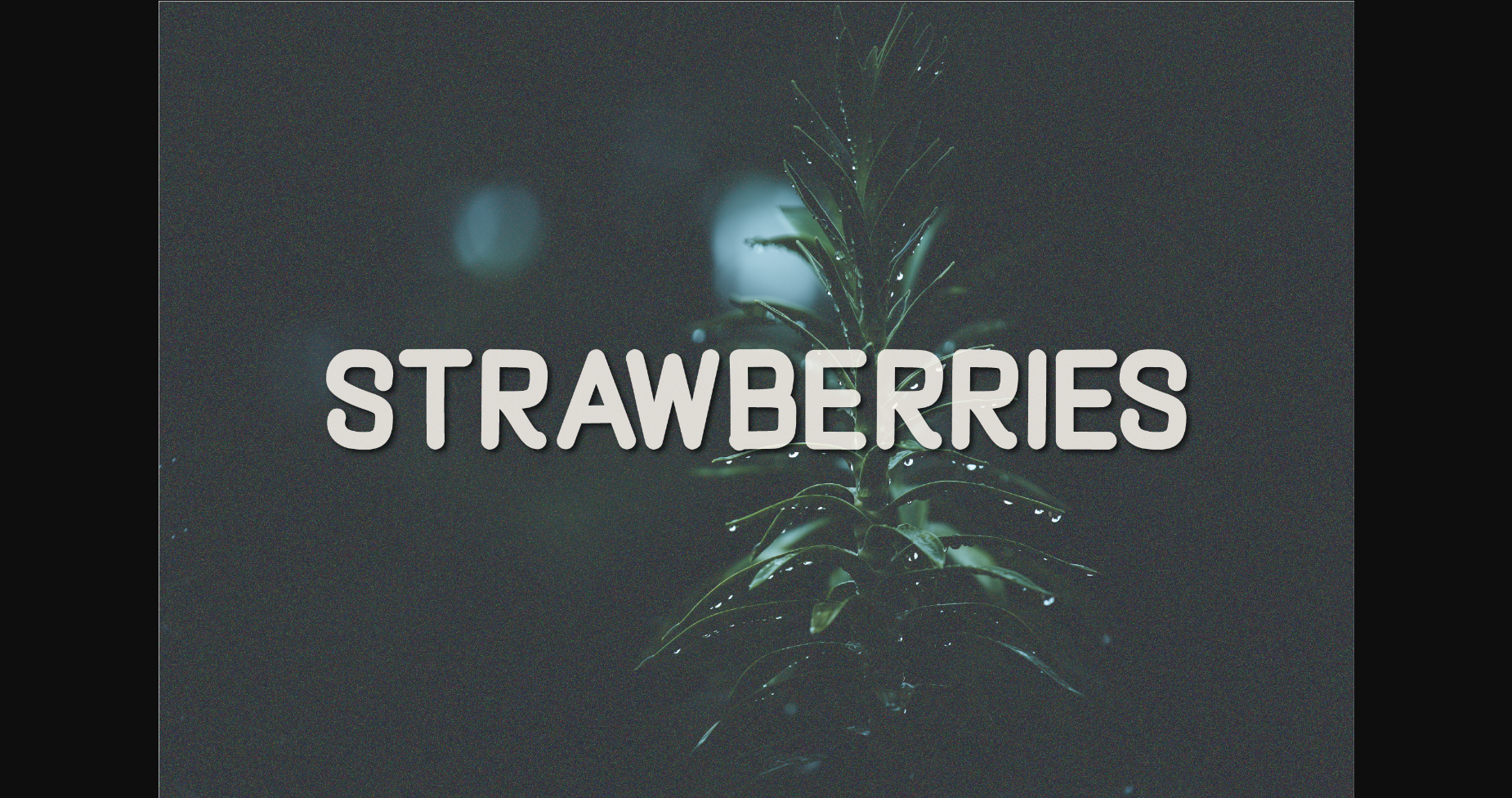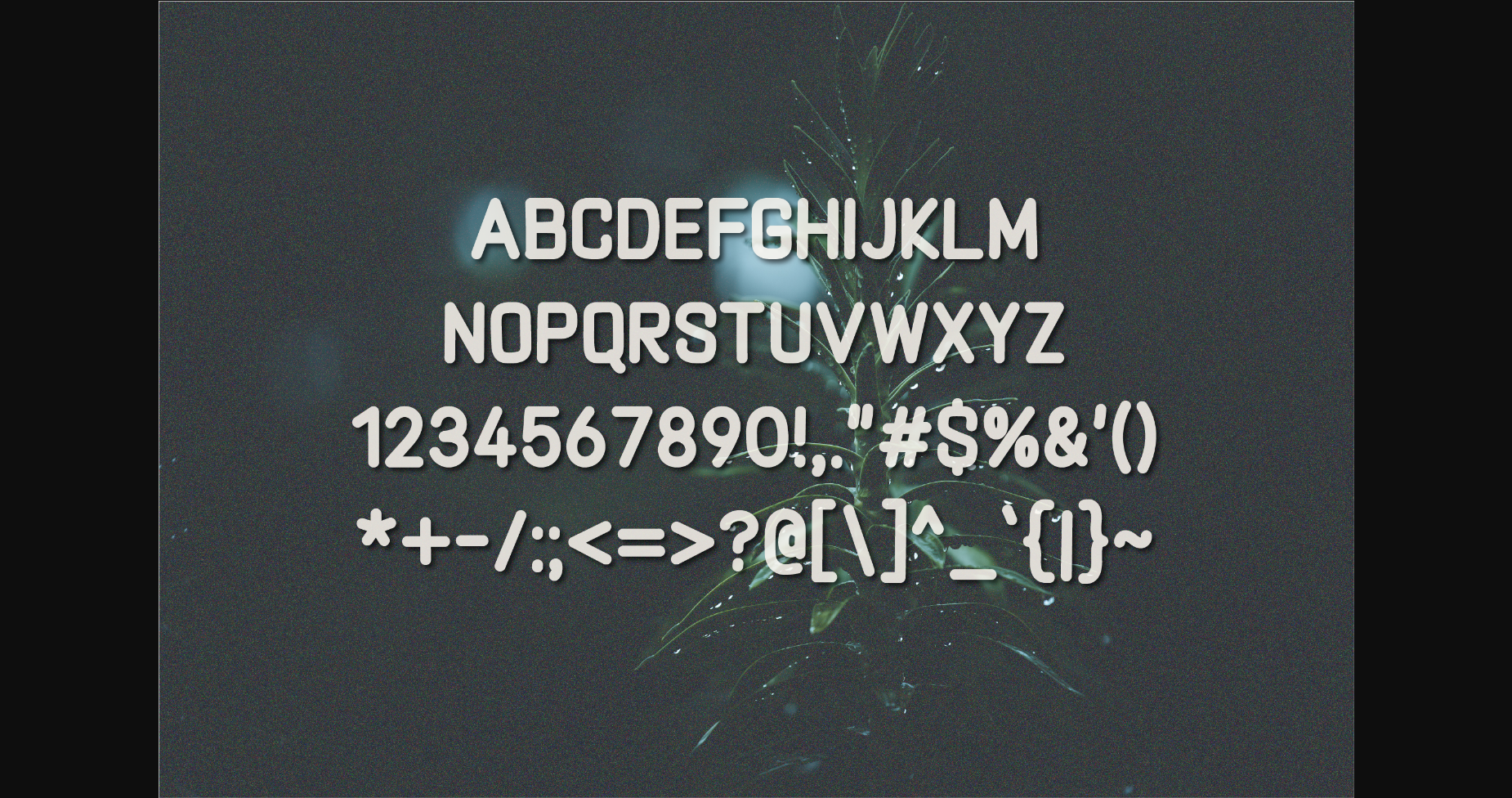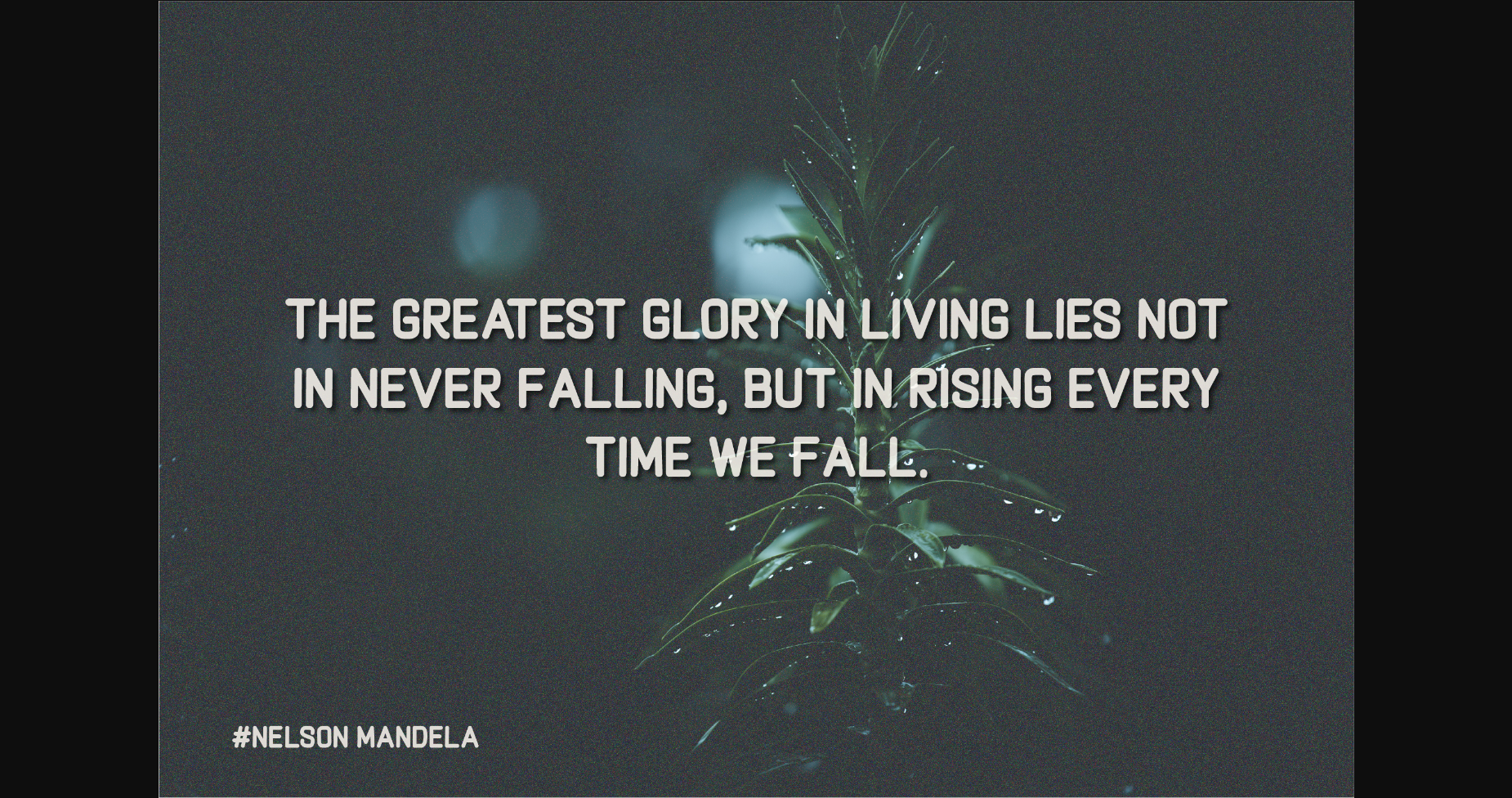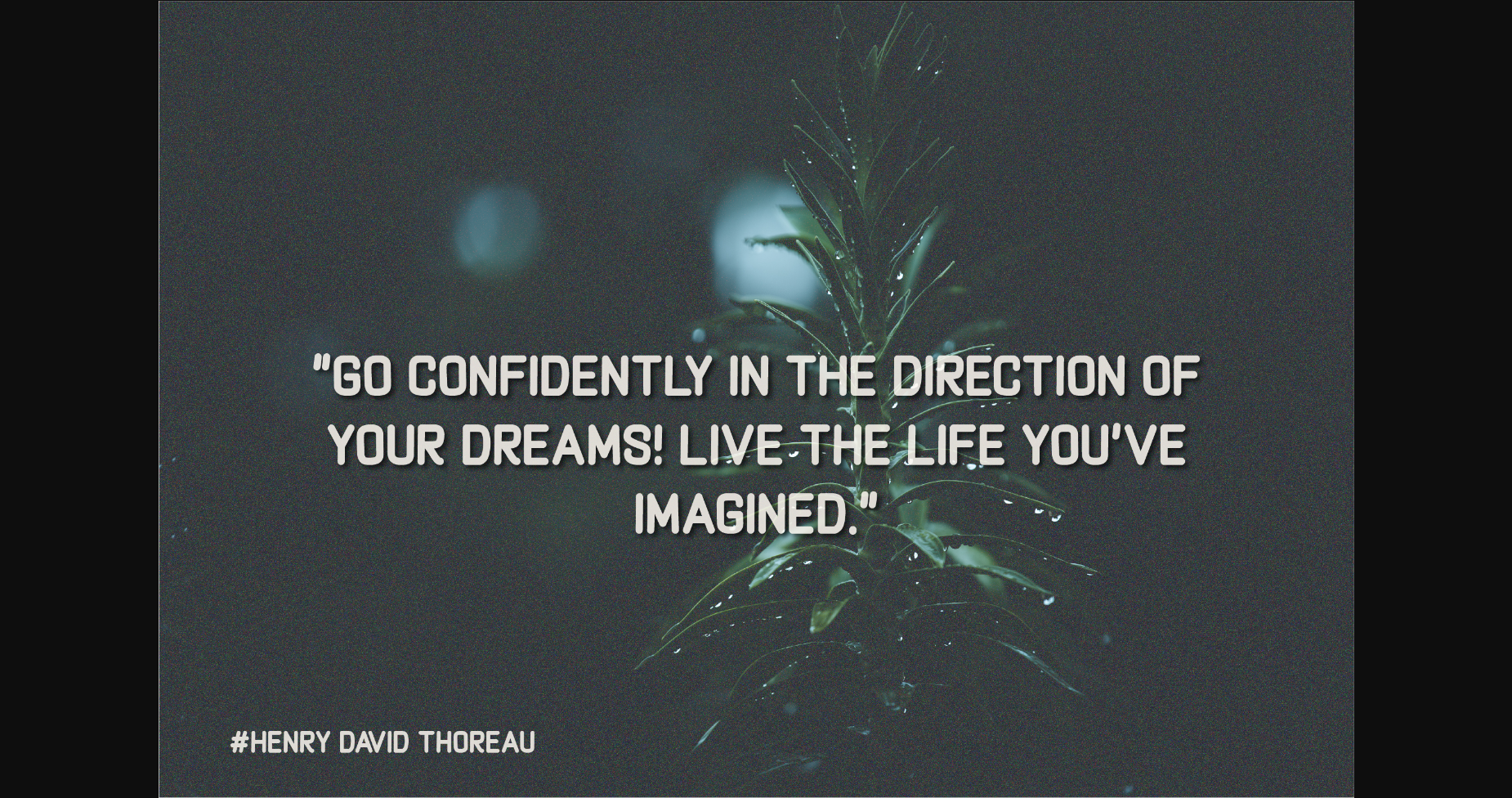
About Strawberries Font
Strawberries is a quirky all-caps font made up of capital letters. This font is perfect for social media or crafty projects. Simple and smooth perfect for crafting, t-shirts, decals, cards, invitations and so much more.